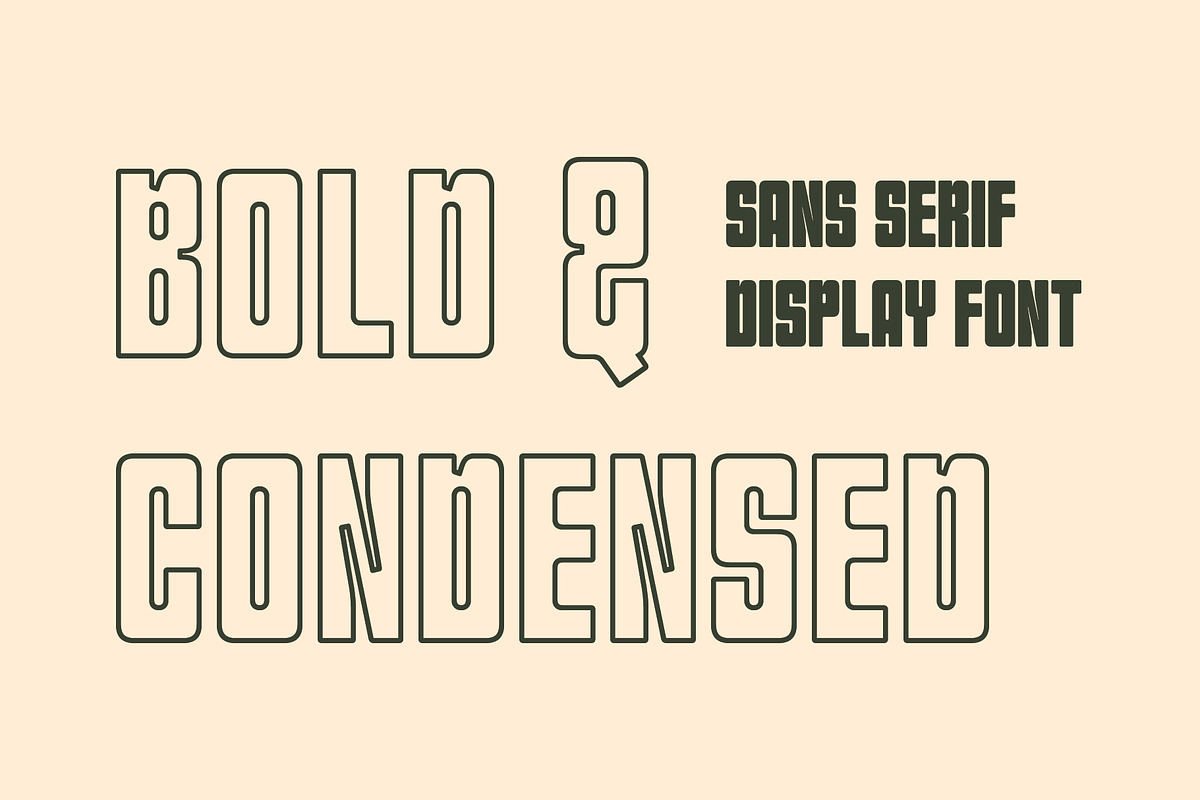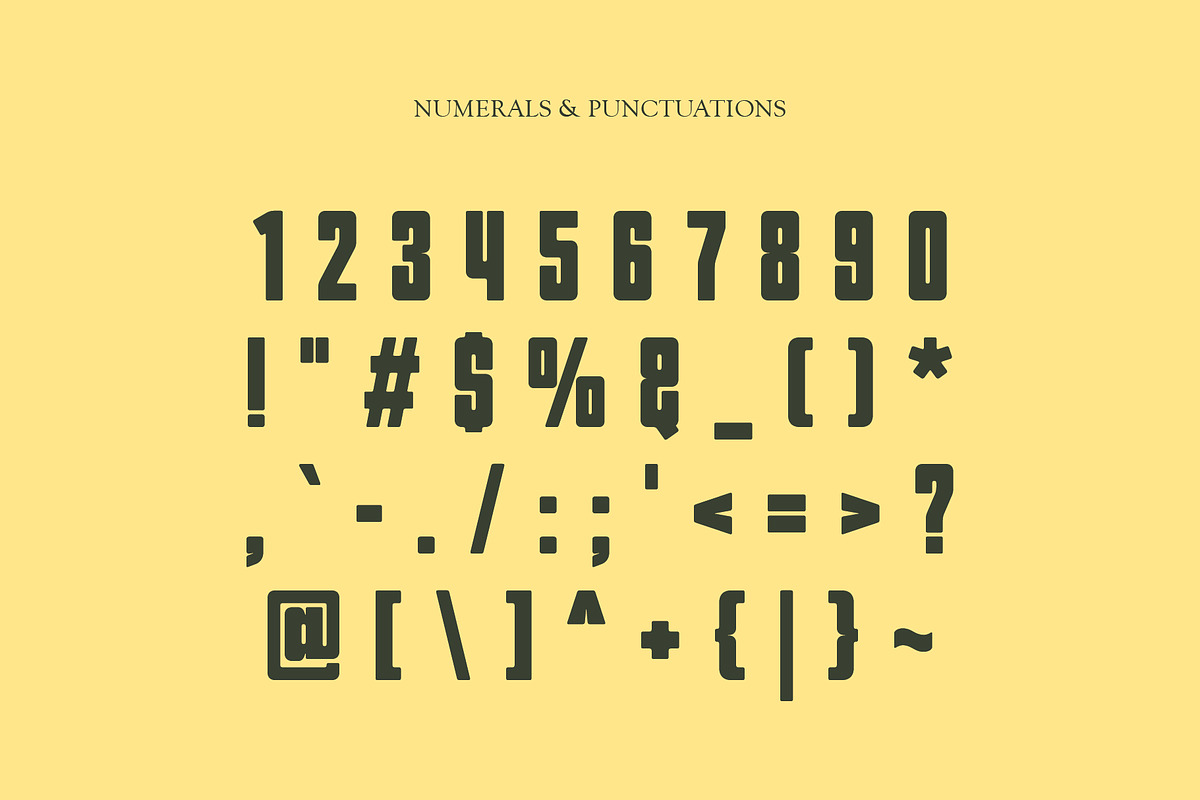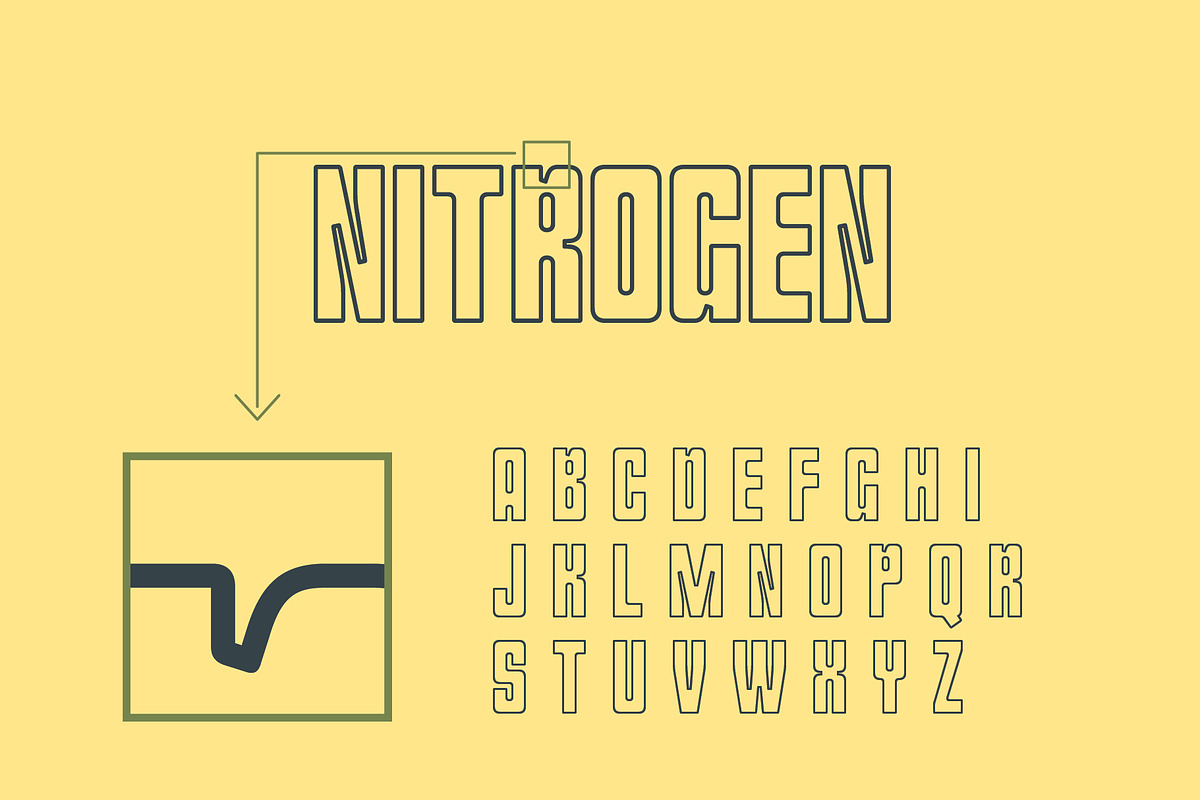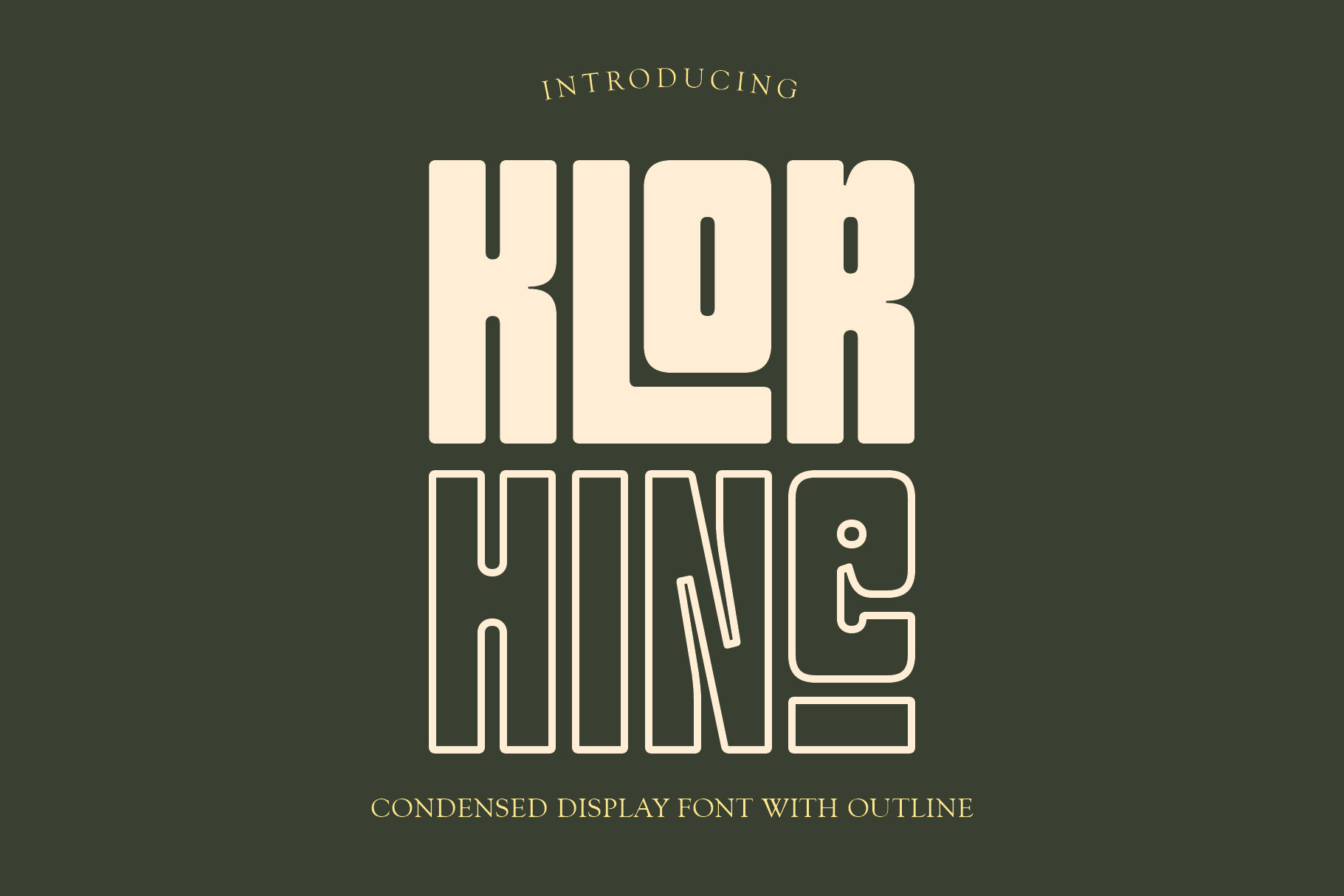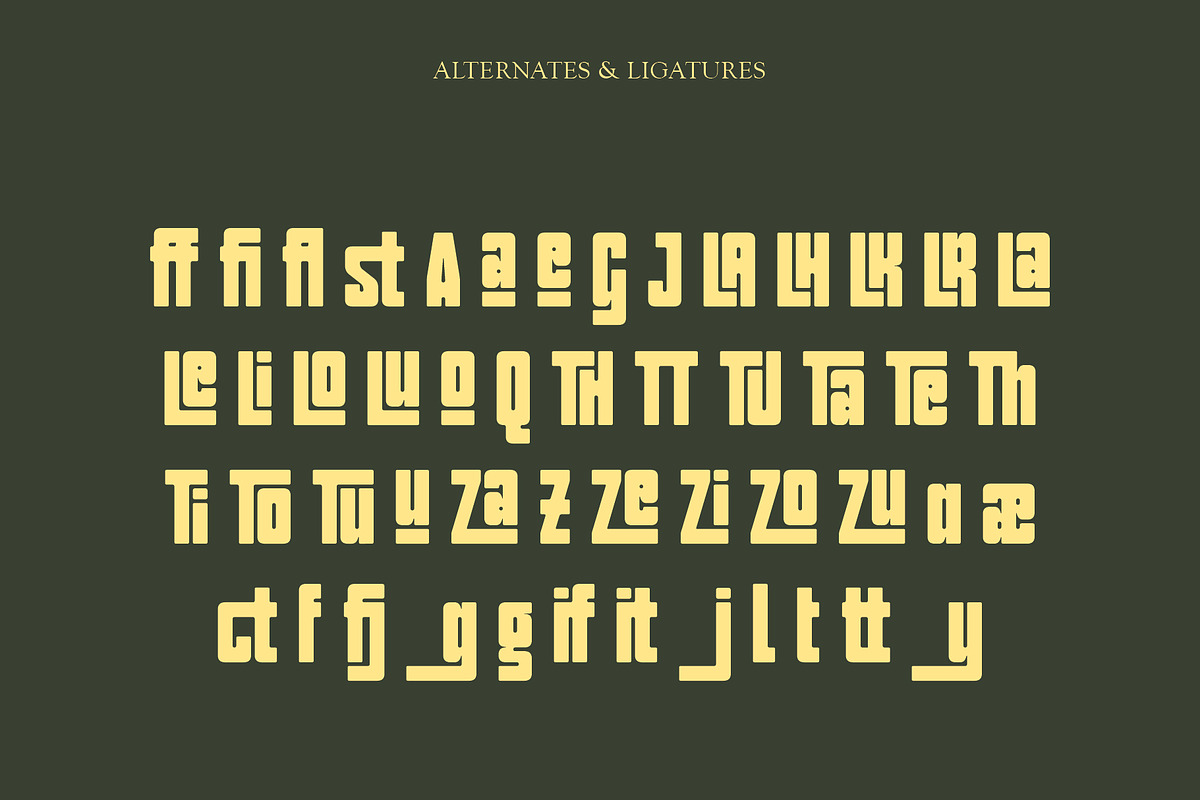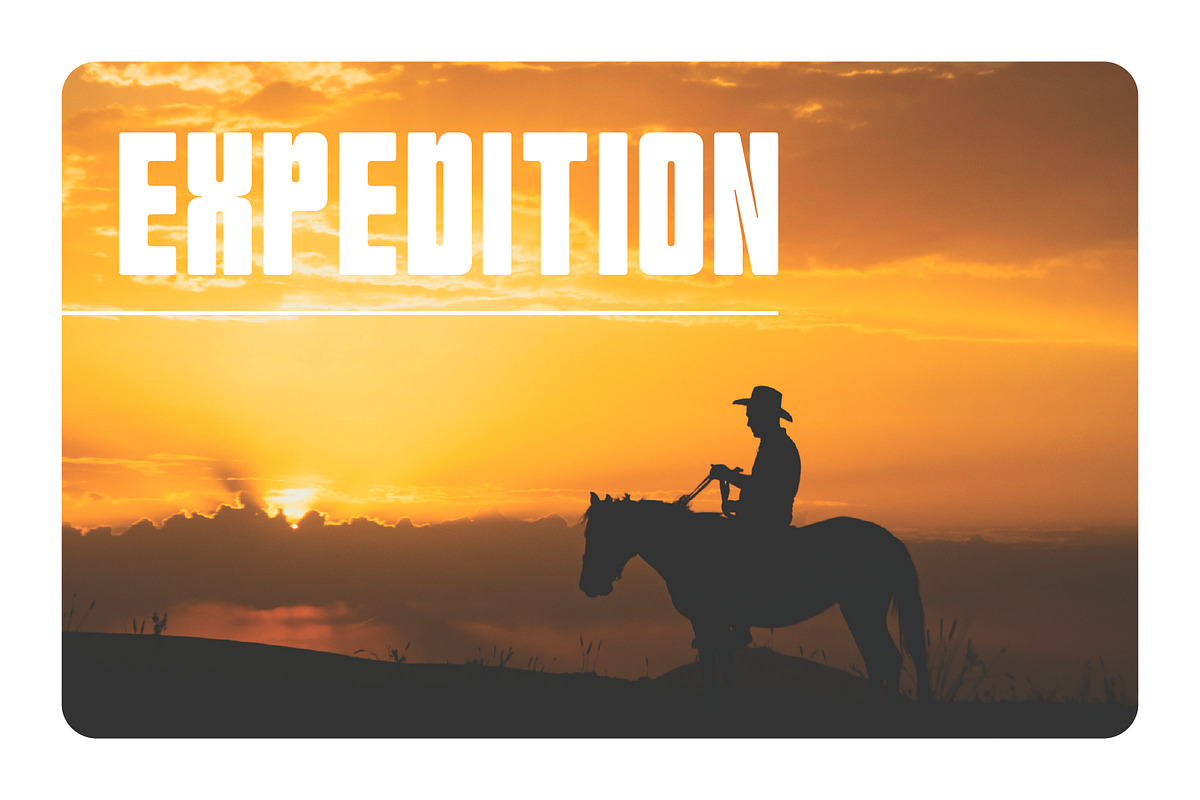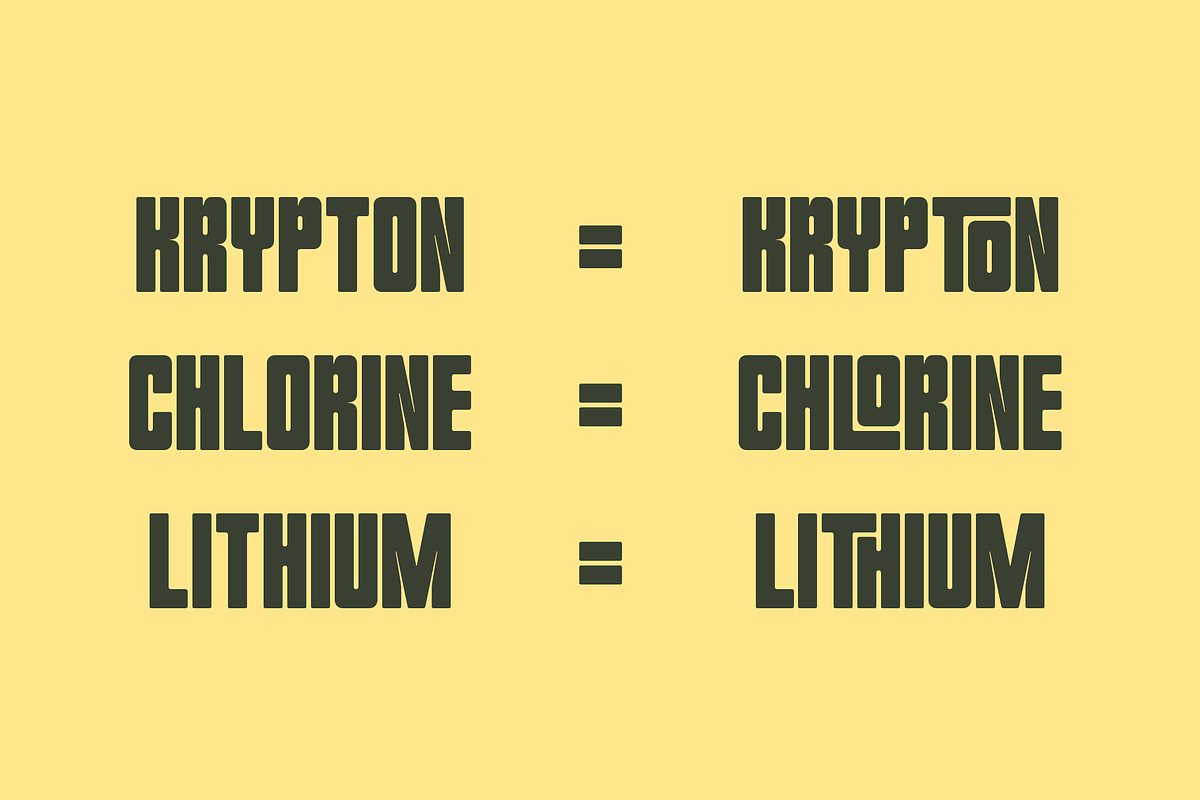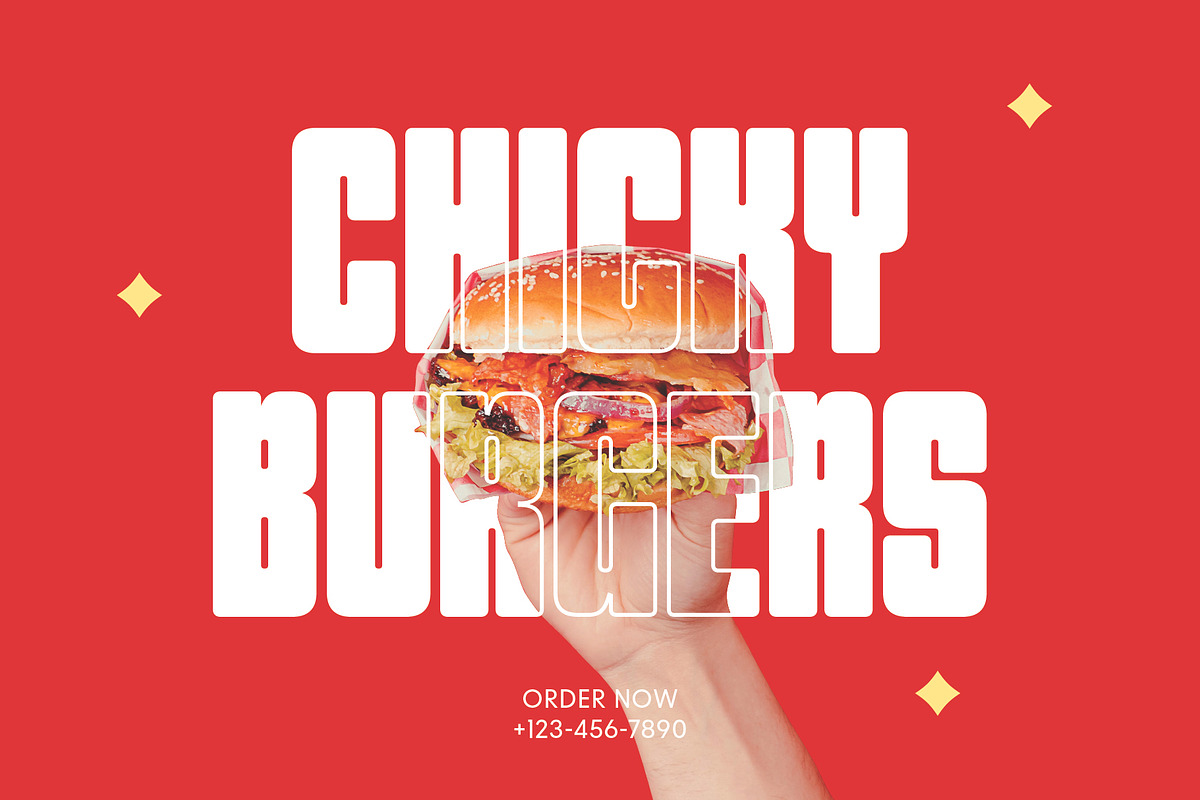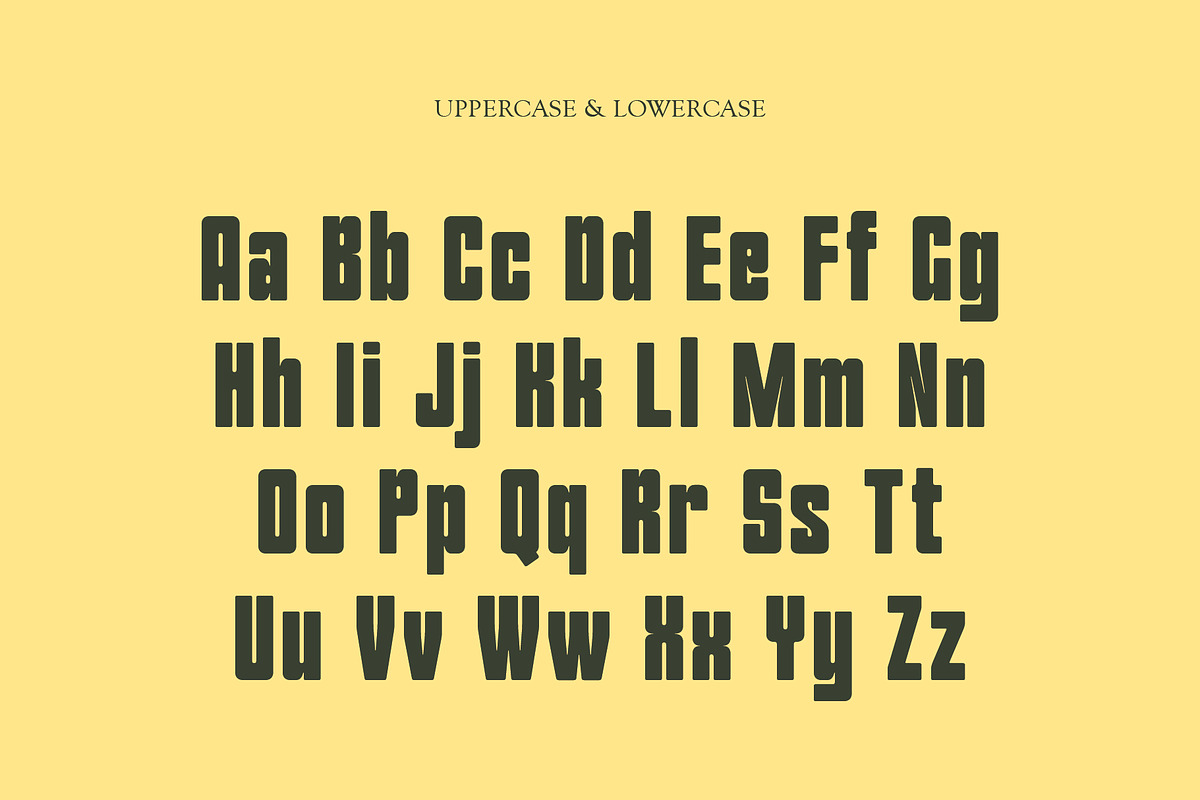
Klorhine - Condensed Font
Looking for a font that stands out? Klorhine is a bold, condensed sans serif with smooth, rounded edges. Its shape feels strong yet friendly. This makes it perfect for designs that need impact and clarity.
You can use Klorhine in posters, headlines, logos, or packaging. It also works well on social media graphics. No matter the project, this font adds bold personality.
Klorhine includes uppercase and lowercase letters, numbers, and basic symbols. It also offers alternates and ligatures, giving you more creative options. In addition, the font comes in two styles: a solid version and a clean outline version. So, you can switch between bold and sleek depending on your design.